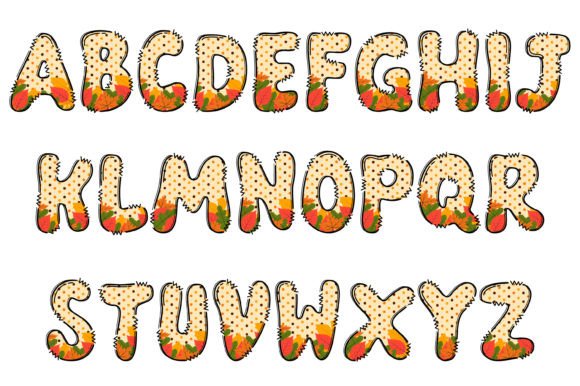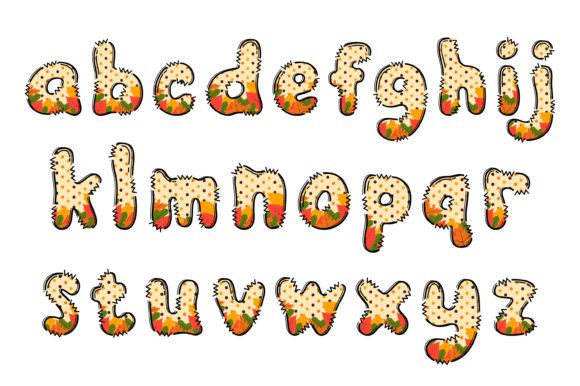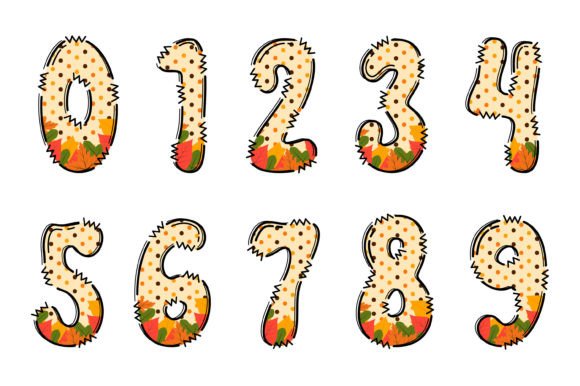
Fall Leaves Font: A Whimsical Addition to Your Design Arsenal
As the seasons change and fall arrives, designers and crafters often look for fonts that capture the playful and artistic feel of the season. One font that embodies this spirit is the Fall Leaves Font. This charming font is perfect for a variety of design projects, from children’s books to posters, invitations, and greeting cards.
Characteristics of Fall Leaves Font
The Fall Leaves Font is a unique and eye-catching font that features a whimsical, hand-drawn design. Its playful and artistic feel makes it an excellent choice for designs that aim to convey a sense of fun and creativity. The font comes in two versions: a black version and a color version.
Using Fall Leaves Font in Your Designs
The Fall Leaves Font is a versatile font that can be used in a variety of design projects. Here are some ideas to get you started:
- Children’s books: The Fall Leaves Font is perfect for children’s books, as it’s whimsical, colorful, and easy to read.
- Posters: Add a playful touch to your posters with the Fall Leaves Font.
- Invitations: Create eye-catching invitations for parties, events, and celebrations.
- Greeting cards: Design beautiful greeting cards for special occasions.
Tips for Using Fall Leaves Font
To get the most out of the Fall Leaves Font, here are some tips:
- Experiment with colors: The color version of the font offers a range of creative possibilities.
- Mix and match: Combine the Fall Leaves Font with other fonts to create a unique look.
- Play with sizes: Use the font in different sizes to create visual interest.
The Fall Leaves Font is a charming and versatile font that’s perfect for designers and crafters who want to add a playful touch to their projects. With its whimsical design and compatibility with various design programs and cutting machines, it’s an excellent addition to any design arsenal. Whether you’re creating children’s books, posters, invitations, or greeting cards, the Fall Leaves Font is sure to bring a smile to your audience’s faces.